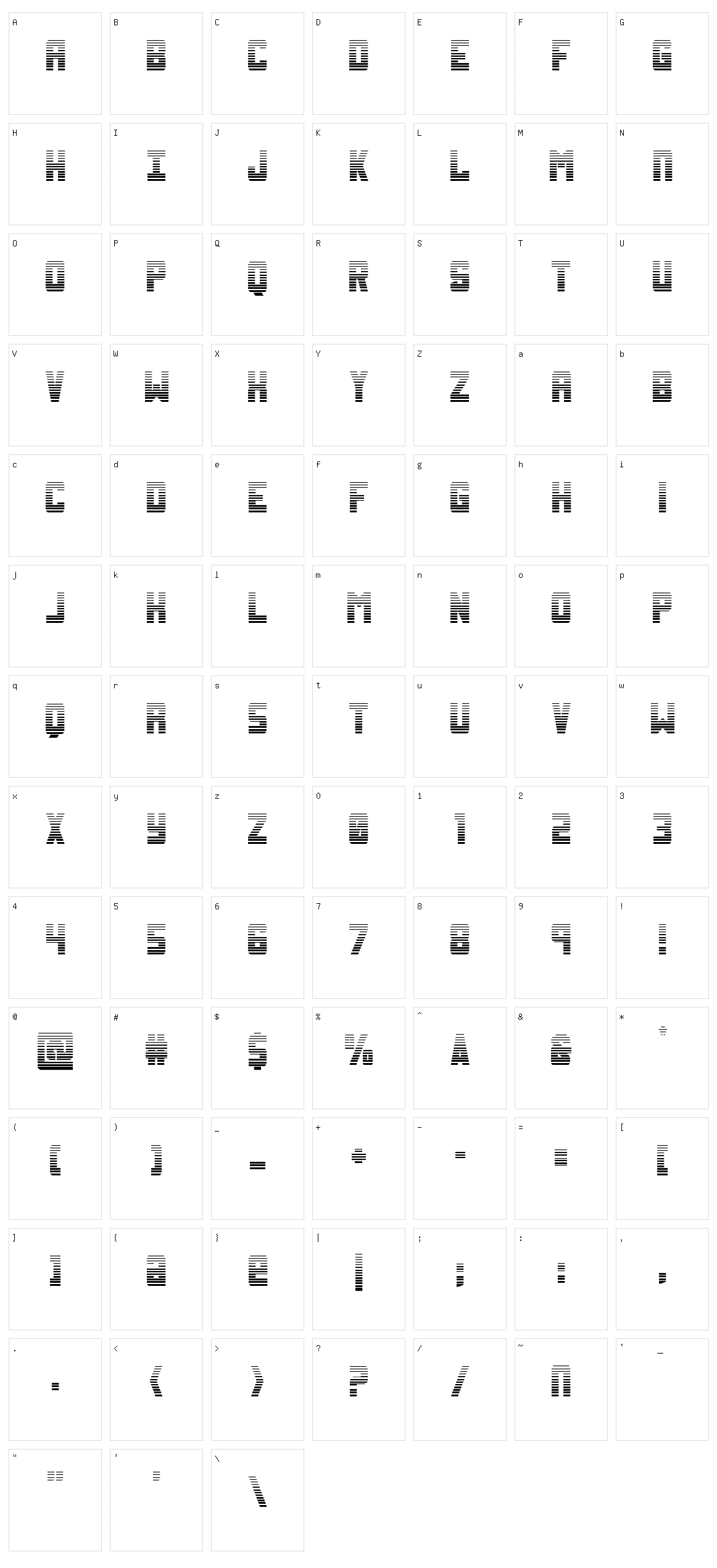
This font comes with the following 21 versions: Regular, Italic, Semi-Italic, Condensed, Condensed Italic, Expanded, Expanded Italic, 3D, 3D Italic, Halftone, Halftone Italic, TwoTone, TwoTone Italic, Gradient, Gradient Italic, Laser, Laser Italic, Super-Italic, Leftalic, Title and Title Italic.